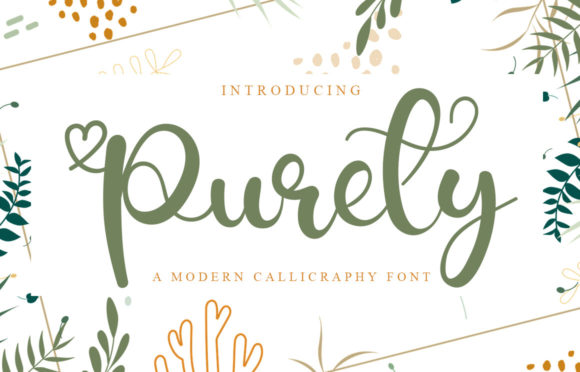
Welcome to the world of Purety, a captivating script font that will transport your designs to new heights of elegance and style. This breathtaking font boasts a seamless blend of timeless beauty and modern appeal, with its delicate curves and graceful lines adding a touch of sophistication to every character.
Unleash your creativity and let Purety's versatility enhance your branding, logos, websites, and wedding invitations. Its inherent charm and allure will leave a lasting impression, whether you're crafting promotional materials, captivating photography projects, or simply adding a distinctive touch to your personal correspondence.
With Purety, you'll discover endless opportunities to express yourself. Dive into the world of logo design and create emblems that exude class and professionalism. Transform your website into a visual masterpiece, capturing the attention of visitors with headers and sliders that radiate elegance. Craft wedding cards and invitations that reflect the joy and love of your special day, adorned with Purety's enchanting script.
Explore the realm of branding and fashion and let Purety elevate your designs to new heights. Develop clothing lines, accessories, and packaging that emanate confidence and sophistication. Create promotional materials that leave a lasting impression, ensuring your brand stands out from the crowd.
But there's more to Purety than just its aesthetic appeal. This font is also a testament to quality and craftsmanship. Created by the renowned designer Eddygoodboy, Purety is meticulously crafted to ensure impeccable performance and readability. Whether displayed on screen or printed on paper, this font will retain its clarity and beauty, ensuring your designs always look their best.
So, why settle for ordinary when you can embrace the extraordinary? Choose Purety today and unlock a world of creative possibilities. Let this enchanting font carry your designs to new heights of elegance and captivate your audience with its timeless beauty.